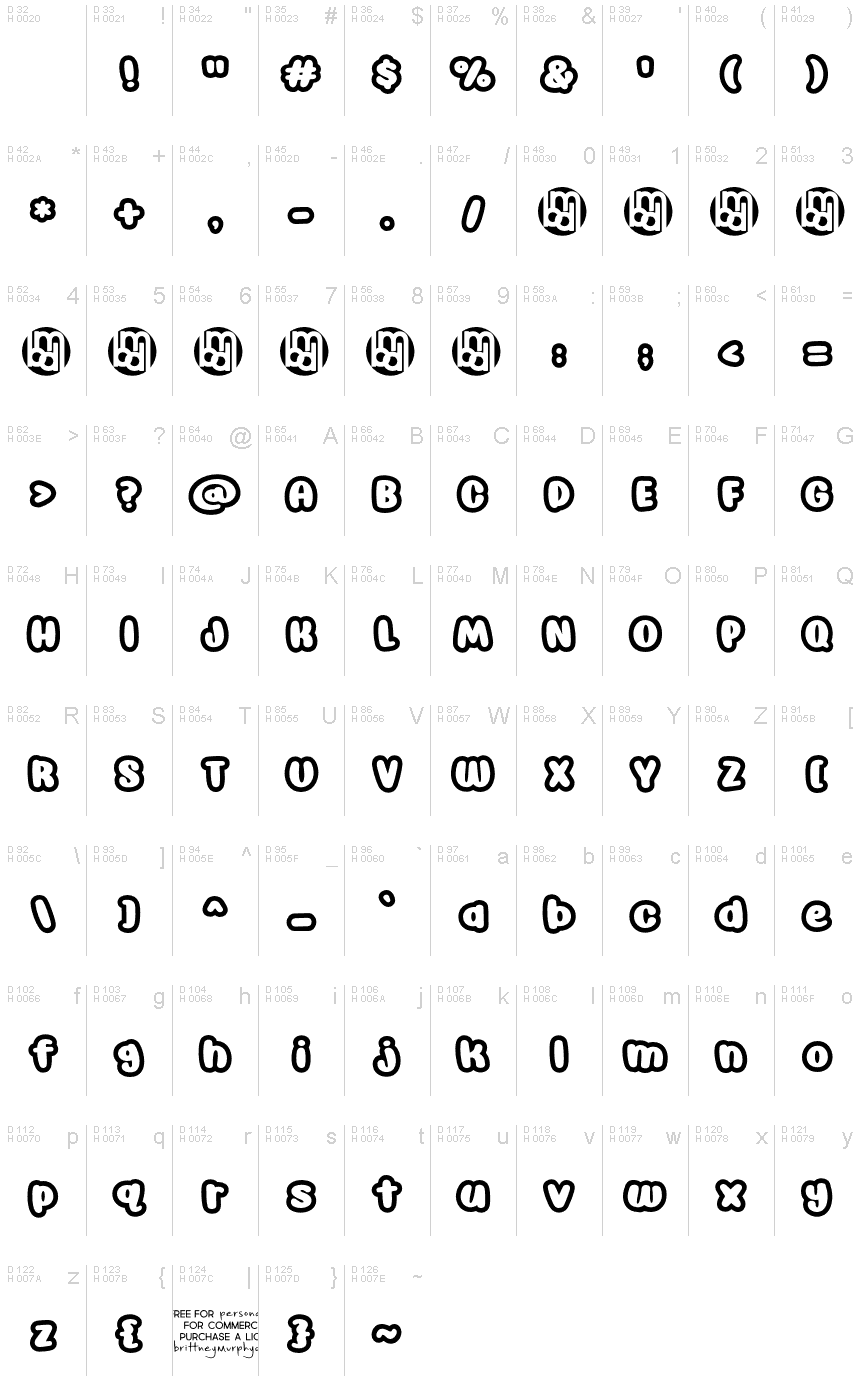
Awesome Possum Outlined font is a bold cartoon typeface designed by Brittney Murphy.
Awesome Possum Outline is a fun thick outlined cartoon font from Brittney Murphy Design! Great for kids projects. ?